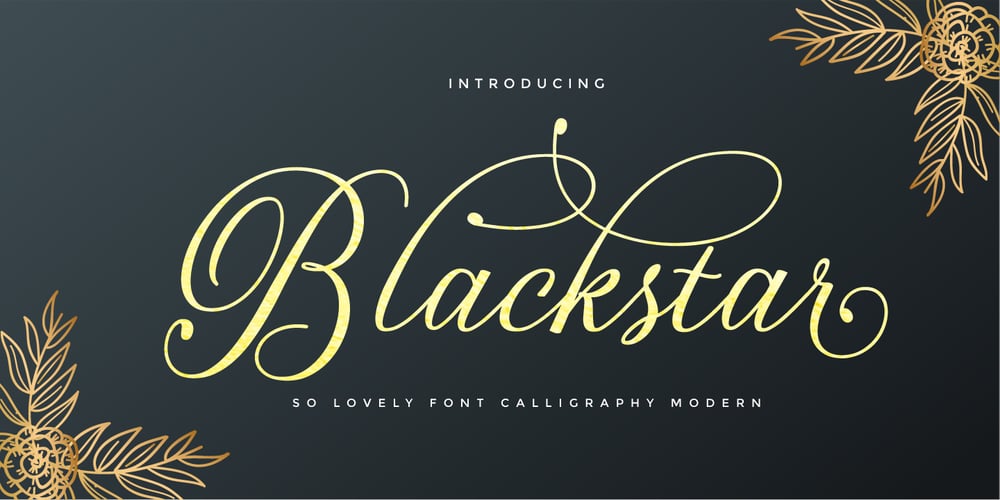
Blackstar Font Family was designed by Kurniadi Saputra and published by Cooldesignlab. Blackstar contains 1 styles and family package options. Blackstar is a beautiful and interesting calligraphy handwriting font. The font looks sweet and full of character. You can use this font in your design products like invitation, mockup, embossed, branding card and others. Bonus is Extra Swashes. Blackstar includes a full set of large and attractive international letters, numbers, punctuation and ligatures. All lowercase letters include the beginning and end of the swashes. Also multilingual symbols. The script is encoded with PUA Unicode, which allows full access to all additional characters without special design software. Mac users can use Font Books, and Windows users can use Map Characters to view and copy additional characters to be included in your favorite text editor / app. Thank you for the purchase & don’t forget to click recommended.